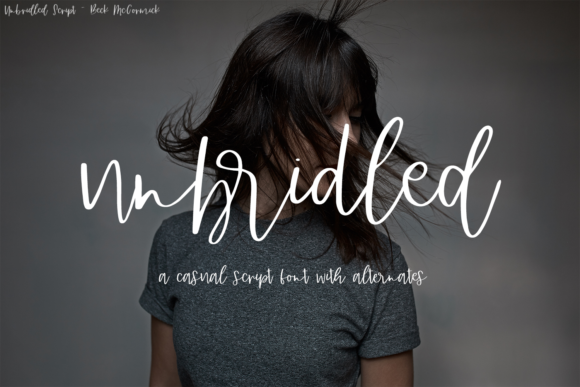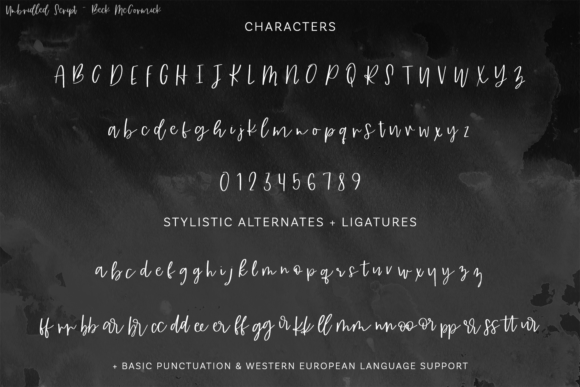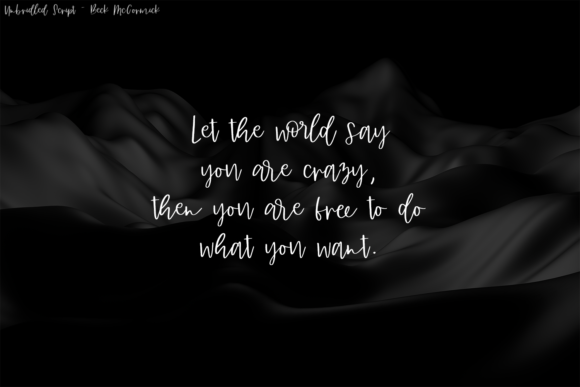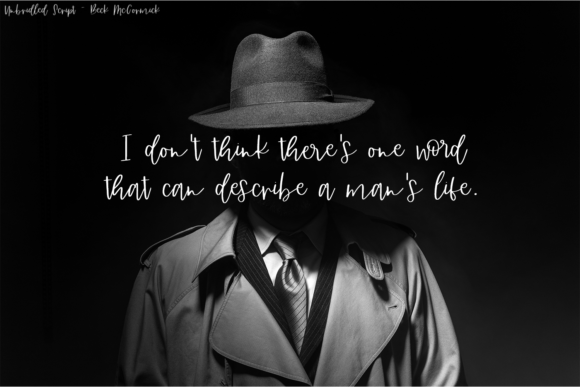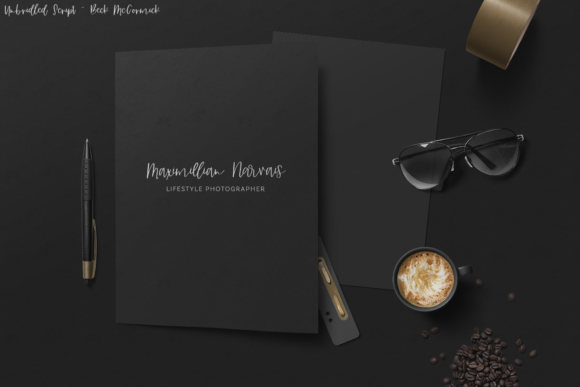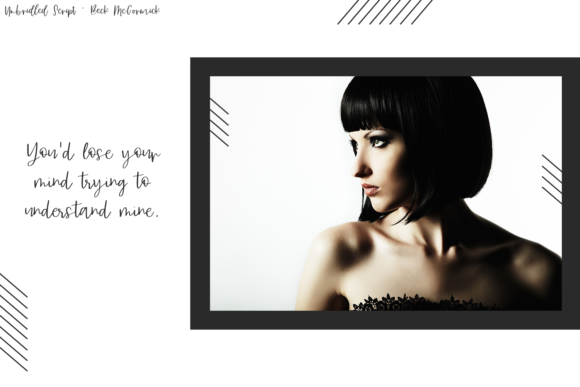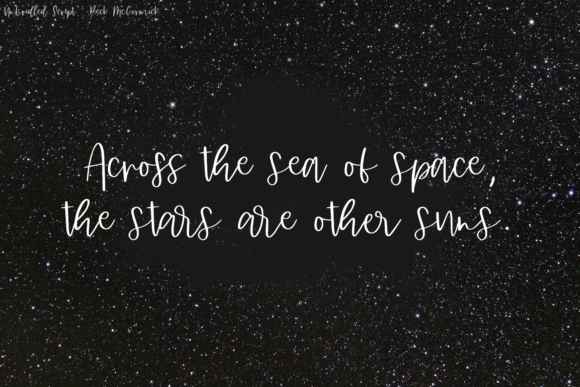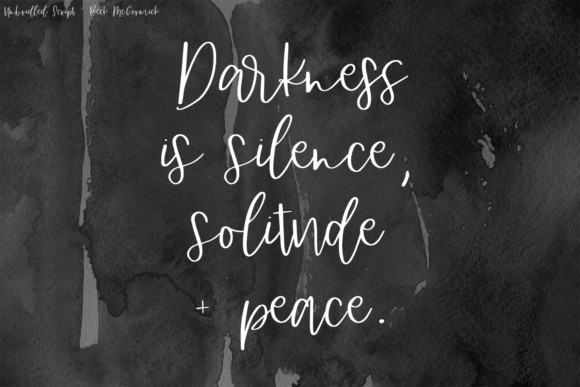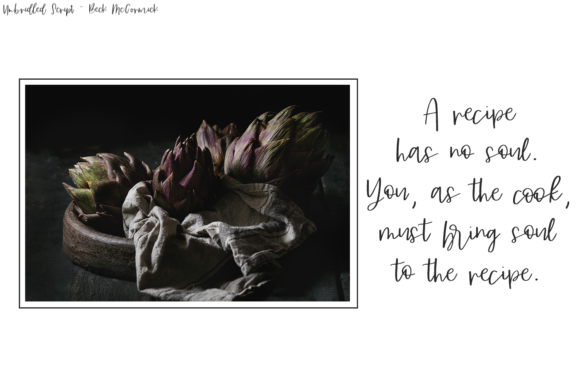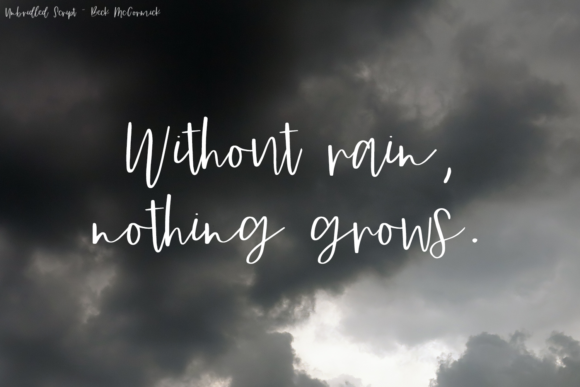
Unbridled Font
Unbridled is a beautiful and stunning handwritten font with a cool twist. It will add an authentic and elegant spark to any design idea.